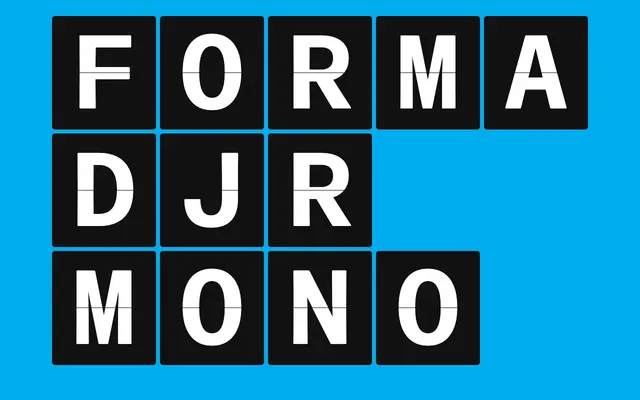
Forma DJR Mono
A monospaced adaptation of DJR's revival of Nebiolo's 1968 Forma, engineered by Ruggero Magrì to carry the original's subtly rounded corners and tapered stems onto a fixed-width grid.
Drawn by Ruggero Magrì with David Jonathan Ross, the typeface reworks the proportionally-spaced Forma DJR for a monospace grid, compensating for the inevitable distortion of narrow and wide letters without losing the ink-on-paper warmth Roger Black sought to preserve in the original revival. Eight weights from Hairline to Black ship with matching italics and unserifed alternates for f and r, plus a variable font, making 16 styles in total. Suited to tables, code snippets and brand-consistent contexts where the cold regularity of most monospace fonts would feel out of place.
A monospaced sans rooted in Nebiolo's 1968 Forma, itself a humanist geometric sans; the fixed-width grid is the defining structural feature, placing it firmly in the mono category while retaining the warm, slightly organic qualities of its proportional source.